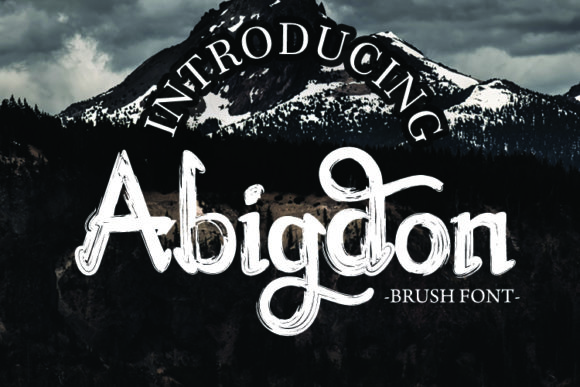
Feast your eyes on Abigdon Font, a captivating display font that will breathe life into your creative endeavors. Crafted with the utmost care using a dry brush pen, Abigdon emanates a casual charm that effortlessly elevates your designs.
With its sweeping strokes and organic textures, Abigdon captures the essence of handwritten artistry. Its fluid lines dance across the page, evoking a sense of spontaneity and authenticity. Abigdon is not just a font; it's an expression of your unique style and vision.
Step into a world of endless possibilities with Abigdon. Let your imagination soar as you explore its versatility in a myriad of design projects. Whether you're crafting logos that leave a lasting impression, designing products that exude elegance, or creating labels that demand attention, Abigdon is your perfect companion.
Unleash your inner artist and transform your social media posts into visually stunning masterpieces. Capture the essence of your brand with Abigdon's distinctive character. Create invitations that evoke a sense of occasion, leaving your guests eagerly anticipating your special event.
Abigdon's bold strokes and playful personality make it an ideal choice for signboards that command attention. Whether you're creating signage for a sports club, a motor show, or a special event, Abigdon ensures your message shines through.